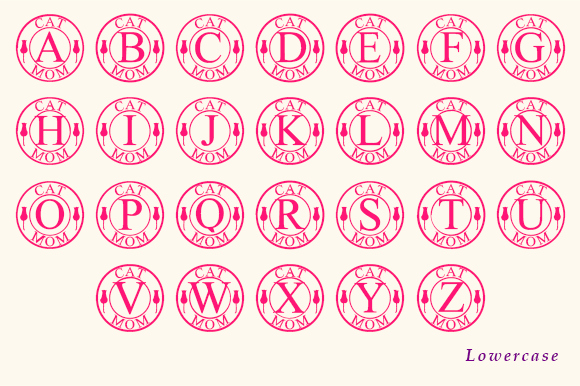
Introducing the Whimsical World of Cat Mom Monogram Font
Are you a feline enthusiast and a proud cat mom? Do you want to add a personal touch to your stationery, social media posts, and greeting cards? Look no further than the Cat Mom Monogram Font, a beautiful and elegant decorative font that features lovely cat-themed ornaments. In this article, we’ll dive into the world of Cat Mom Monogram Font and explore its features, uses, and benefits.
What is Cat Mom Monogram Font?
The Cat Mom Monogram Font is a unique and charming font that combines the warmth of monogrammed typography with the playfulness of cat-themed illustrations. This decorative font is designed to capture the essence of feline love and companionship, making it perfect for cat moms and enthusiasts alike.
Each letter and symbol in the Cat Mom Monogram Font is carefully crafted to showcase intricate cat-themed details, from whiskers to paws. The font’s authentic feel and elegant design make it an excellent choice for creating beautiful stationery art, eye-catching social media posts, and cute greeting cards.
Features of Cat Mom Monogram Font
The Cat Mom Monogram Font boasts a range of features that make it a standout font for any creative project. Some of its notable features include:
- Unique Cat-Themed Ornaments: The font features a variety of cat-themed ornaments, including cats, paws, and whiskers, which add a playful touch to any design.
- Elegant Monogrammed Typography: The font’s monogrammed typography is elegant and sophisticated, making it perfect for creating beautiful stationery art and greeting cards.
- Authentic Feel: The font’s authentic feel makes it perfect for creating designs that are both modern and vintage-inspired.
Uses of Cat Mom Monogram Font
The Cat Mom Monogram Font is a versatile font that can be used in a variety of creative projects, including:
- Stationery Art: Create beautiful stationery art, including greeting cards, invitations, and thank-you cards, using the font’s elegant monogrammed typography and cat-themed ornaments.
- Social Media Posts: Add a touch of whimsy to your social media posts with the font’s playful cat-themed illustrations and elegant typography.
- Greeting Cards: Create cute and personalized greeting cards for cat lovers and enthusiasts using the font’s unique cat-themed ornaments and monogrammed typography.
- Branding and Packaging: Use the font to create custom branding and packaging for your cat-themed business or product.
Benefits of Using Cat Mom Monogram Font
Using the Cat Mom Monogram Font in your creative projects offers a range of benefits, including:
- Unique and Eye-Catching Designs: The font’s unique cat-themed ornaments and elegant monogrammed typography make it easy to create eye-catching designs that stand out from the crowd.
- Time-Saving: The font’s pre-designed letters and symbols save you time and effort, allowing you to focus on other aspects of your design.
- Customization: The font can be customized to fit your brand’s style and personality, making it perfect for businesses and individuals looking for a unique font.
- Fun and Playful: The font’s playful cat-themed illustrations add a touch of fun and whimsy to any design, making it perfect for cat-themed projects.
Tips for Using Cat Mom Monogram Font
To get the most out of the Cat Mom Monogram Font, here are some tips to keep in mind:
- Experiment with Different Colors: The font’s elegant monogrammed typography and cat-themed ornaments look great in a variety of colors, so don’t be afraid to experiment and find the perfect color scheme for your design.
- Mix and Match Letters and Symbols: The font’s pre-designed letters and symbols can be mixed and matched to create unique and eye-catching designs.
- Use it for Branding: The font’s unique cat-themed ornaments and elegant monogrammed typography make it perfect for creating custom branding and packaging for cat-themed businesses or products.
The Cat Mom Monogram Font is a beautiful and elegant decorative font that features lovely cat-themed ornaments. With its authentic feel, elegant monogrammed typography, and playful cat-themed illustrations, this font is perfect for creating gorgeous stationery art, eye-catching social media posts, and cute greeting cards. Whether you’re a cat mom, enthusiast, or designer, this font is sure to delight and inspire your creative projects.